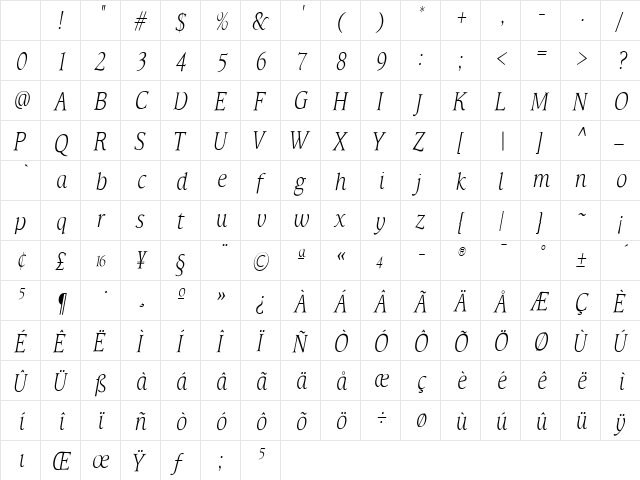
TFHabitatCond is a composed and adaptable typeface that performs quietly and consistently across a wide range of design contexts. The slanted form adds forward momentum and visual energy. Its narrow stance lets it pack a punch even in space-constrained designs.
Pro Tip: Use TFHabitatCond for emphasis, pull quotes, and subheadings where its slanted energy can add rhythm to the layout.